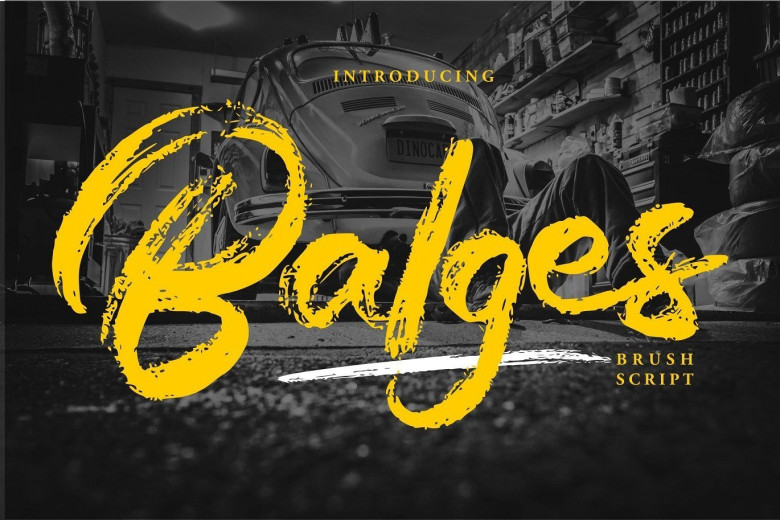
Balges Brush Script Font
Balges Font is a casually and quickly written brush script. Designed with Pentel Brush Sign. Balges Brush has two sets of lower cases to give some variation and more natural look to your text. You can enable It also has a bunch of stylistic alternates that makes your text and design even more appealing.